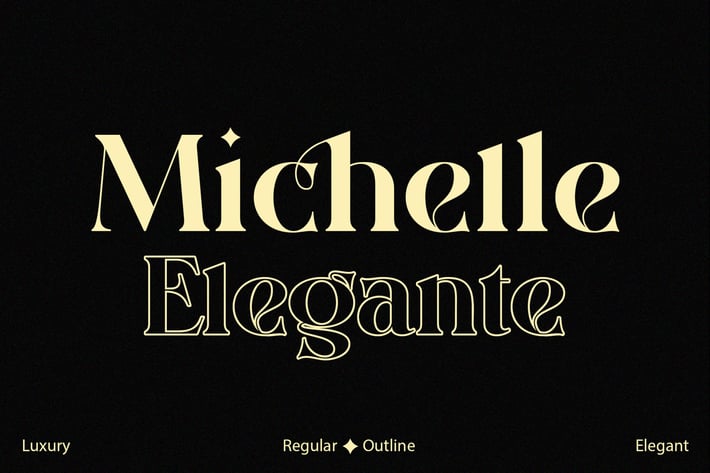
Michelle Elegante duo font
Hello everyone, This time we want to introduce our latest product, "Michelle eleganter" a font designed with a modern style,. of course at an affordable price. This font will add nuance to any of your work.